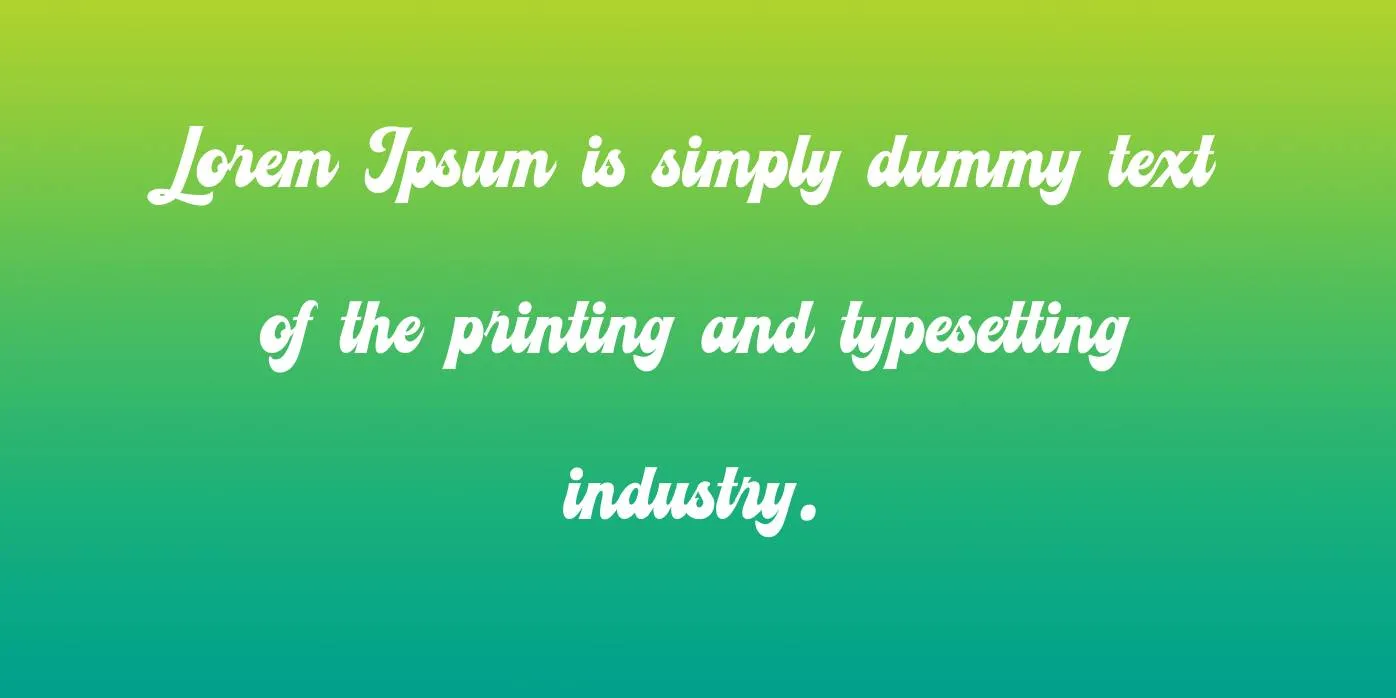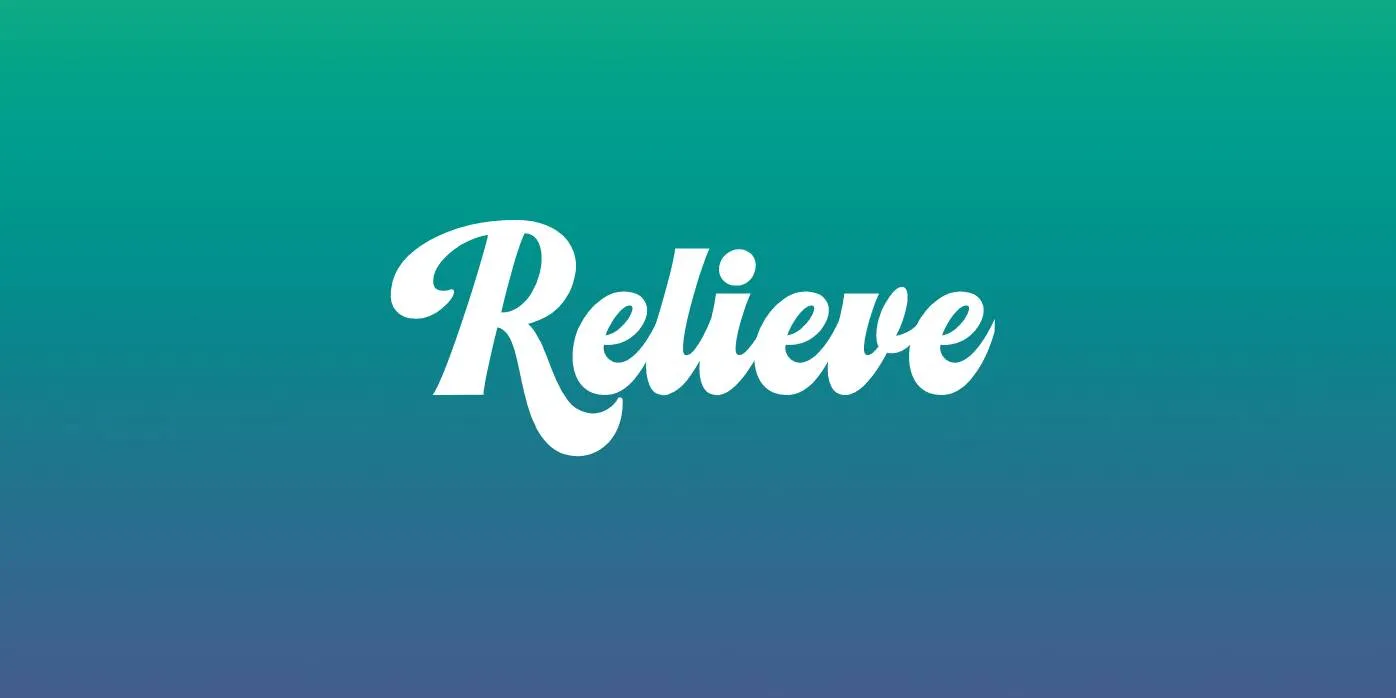
≠Relieve Font
Relieve Font was designed by Dimas Aditya. The Weight of the font is Bold and the width of the font is medium (normal). The directions to write in this font are left to right including neutrals. The patterned nature followed by this font is Italic.
Its pitch is not monospaced. It is a script vintage font created with the style of lettering. Online generator tools can also be used for making simple text into a stylish look. You can also be used to pair it with other fonts like rush hour font to give an attractive look.
It can be used on many devices such as Windows / MAC and Linux. File formats supported by this font are TTF (True Type Font) and OTF (Open Type Font). Usage This font can be used for various projects such as for making headlines to give an eye-catching look. Its high strokes give a very strong look.
This font is suitable for large text for small text it can not be read easily. It is suitable for use in Microsoft Office to make assignments and other files. The Relieve typeface is a suitable choice for making tattoos in Canva. This font is used in MAS Word in a very wide range.
You can also be used for designing logos for different projects. This font has characters, symbols, numbers, punctuation, and special characters. It is the best choice for book cover design, designing clothes, or printing T-shirts. You can be used for making book titles, craft designs, and business cards.
FAQs! Who is the designer of Relieve Font? It was designed by Dimas Aditya. Copyrights© Godzillab Std.
Is Relieve Font a Web-safe Font? Yes, It is a web-safe font you can use it for making designs on a Website. It is a good choice with a stylish look for both print and digital media. What is the Relieve Font used for?